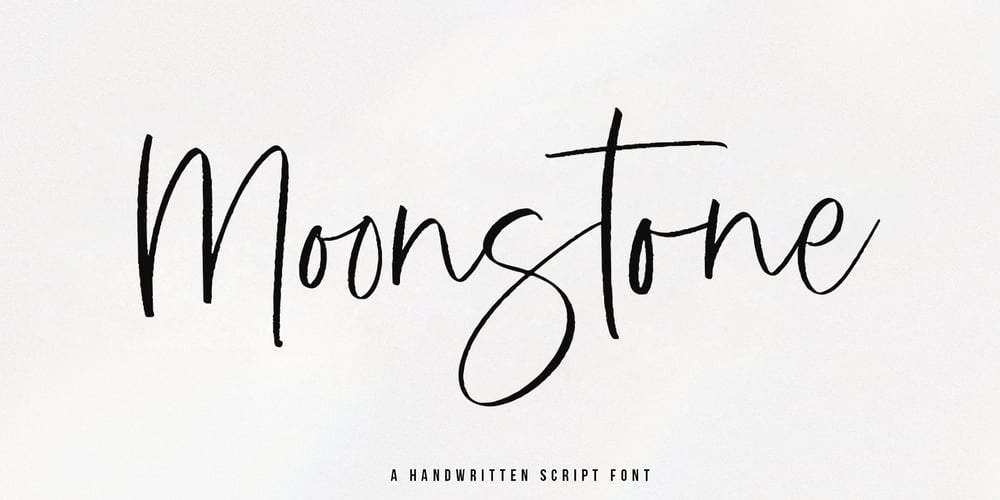
Moonstone Style Font Family was designed by Kaitlynn Albani and published by KA Designs. Moonstone Style contains 1 styles and family package options. Moonstone Style is a handwritten font in a brush calligraphy style. Each letters flows seamlessly into the next to create an authentic modern look! This font has a bit of texture making it perfect for various print designs. Moonstone Style is especially perfect for wedding decor, invitations, branding, logos and more! If you are looking for something both modern and elegant, Moonstyle Style is perfect for you!